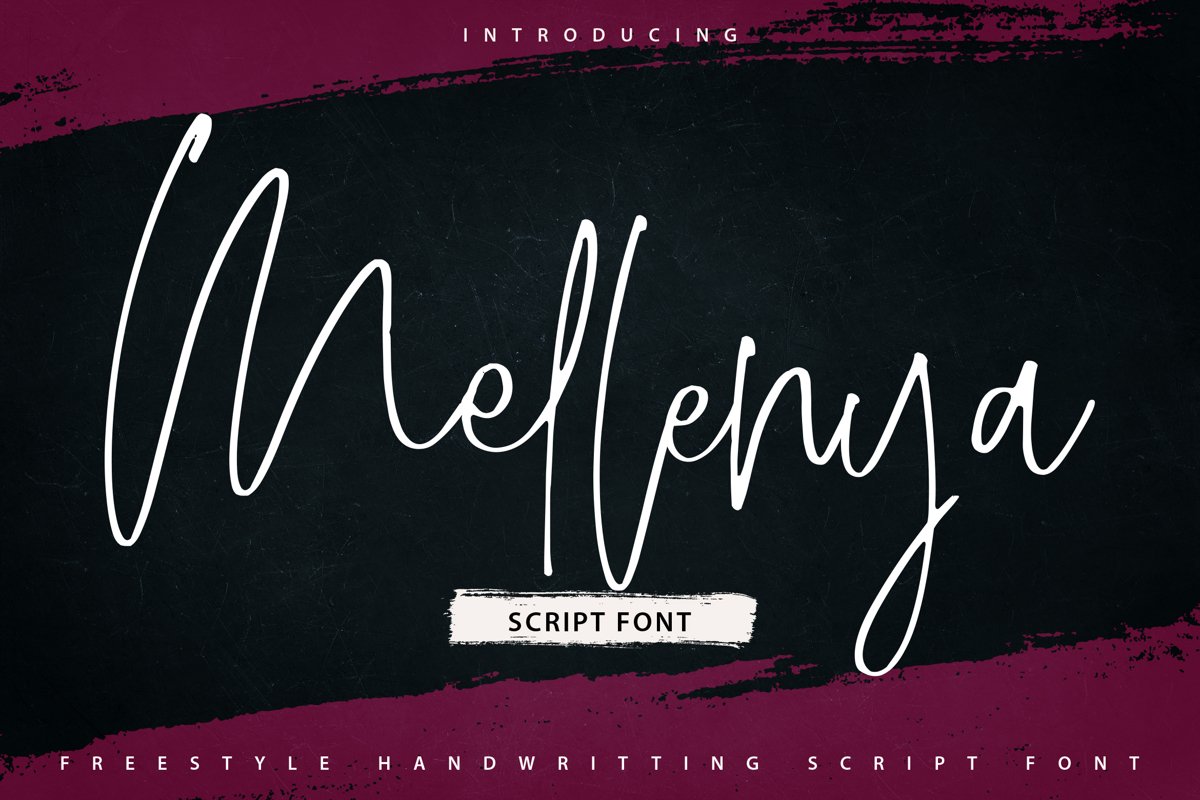
Mellenya | Handwriting Script Font
Mellenya
**Mellenya | Handwriting Script Font** with a calligraphy style, So beautiful on invitation like greeting cards, branding materials, business cards, quotes, posters, and more!
* Tons of glyphs
* Alternates and Ligatures
* Fonts include **Multilingual Support**